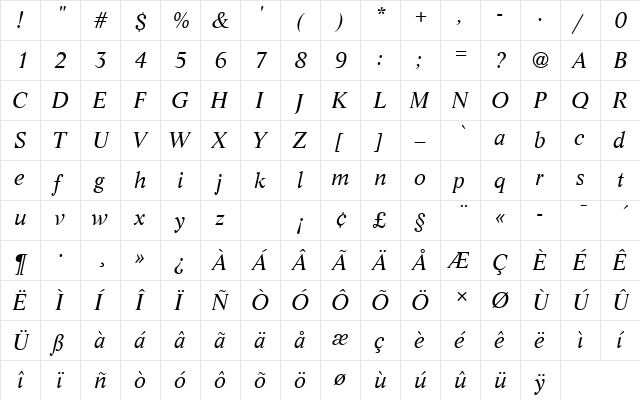
LifeTRegItaRo1 Regular
Design Context for LifeTRegItaRo1 Typeface
LifeTRegItaRo1 is a composed and adaptable typeface that performs quietly and consistently across a wide range of design contexts.